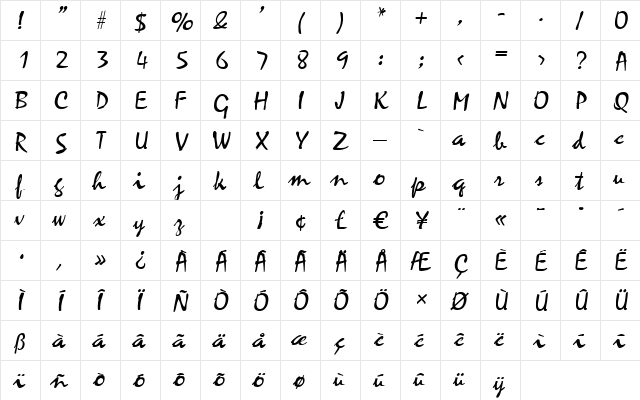
Script-M730 Regular Font Preview
Script-M730 Regular
Script-M730 Regular Font Details
Design Context for Script-M730 Typeface
Script-M730 flows with the natural rhythm of handwritten lettering, making it ideal for designs that call for warmth and personal expression.